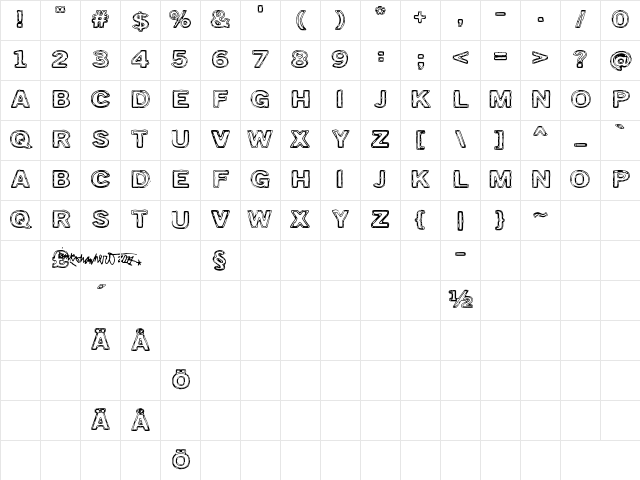
Torstai perjantai Regular
Design Context for Torstai perjantai
Torstai perjantai is a composed and adaptable typeface that performs quietly and consistently across a wide range of design contexts.